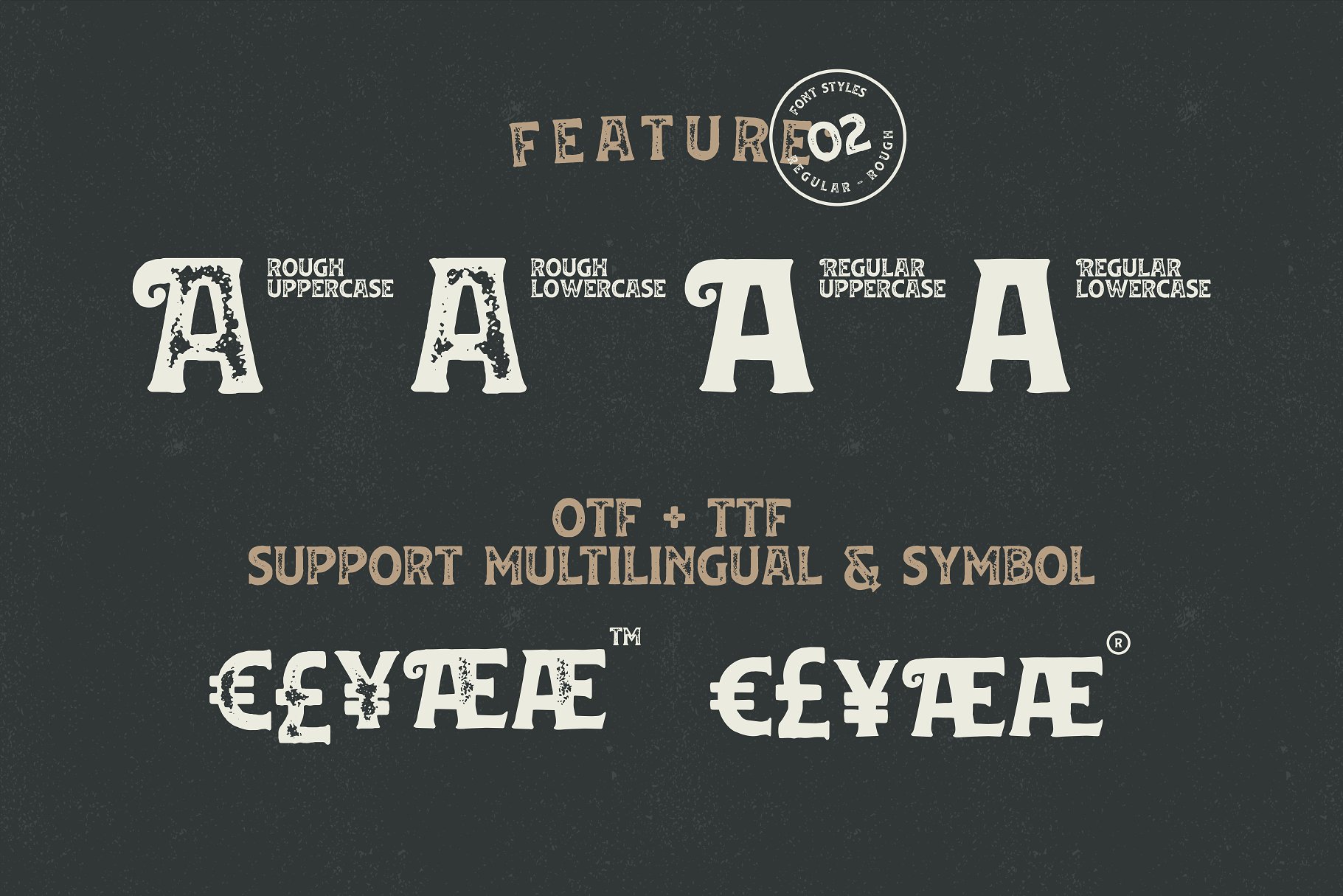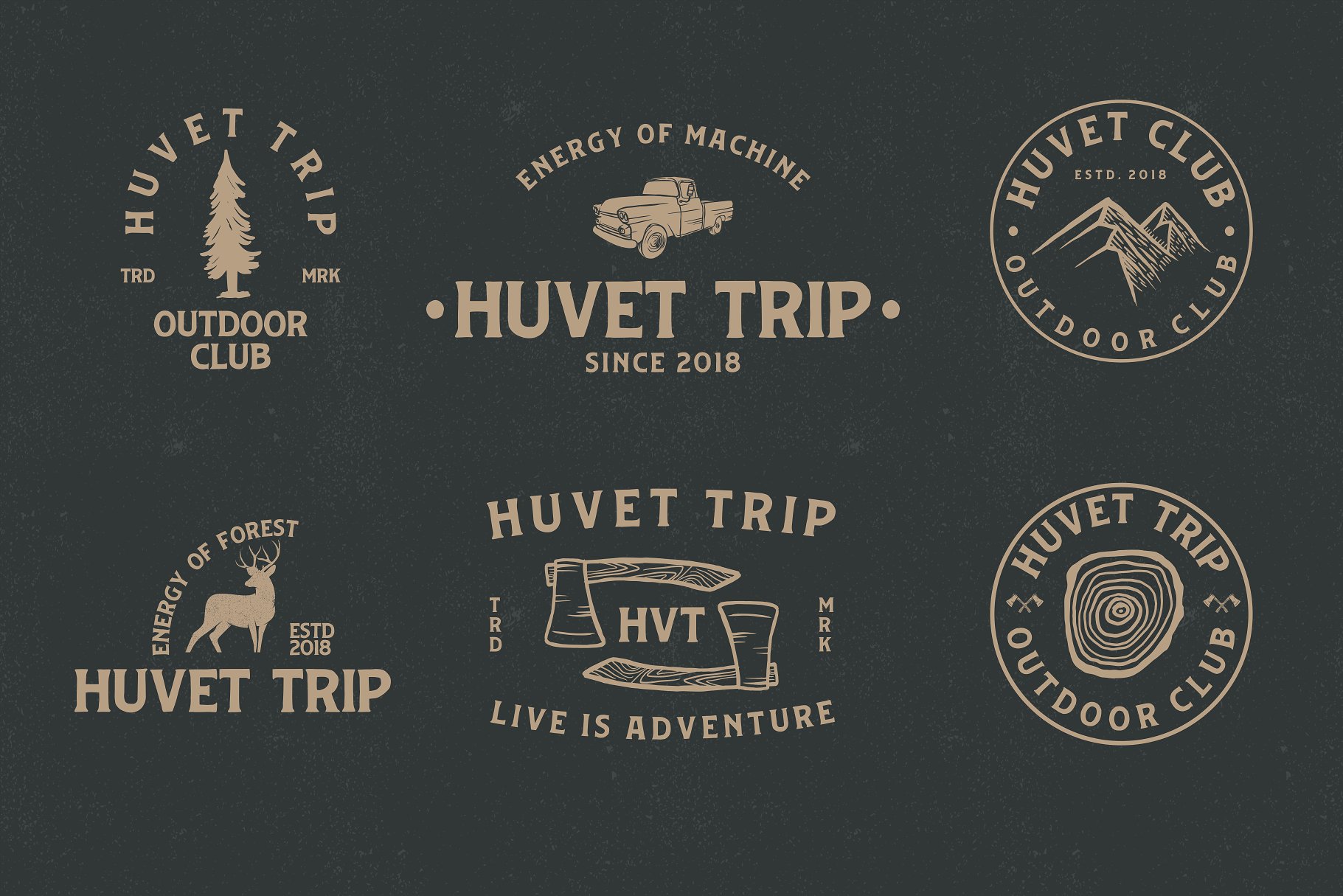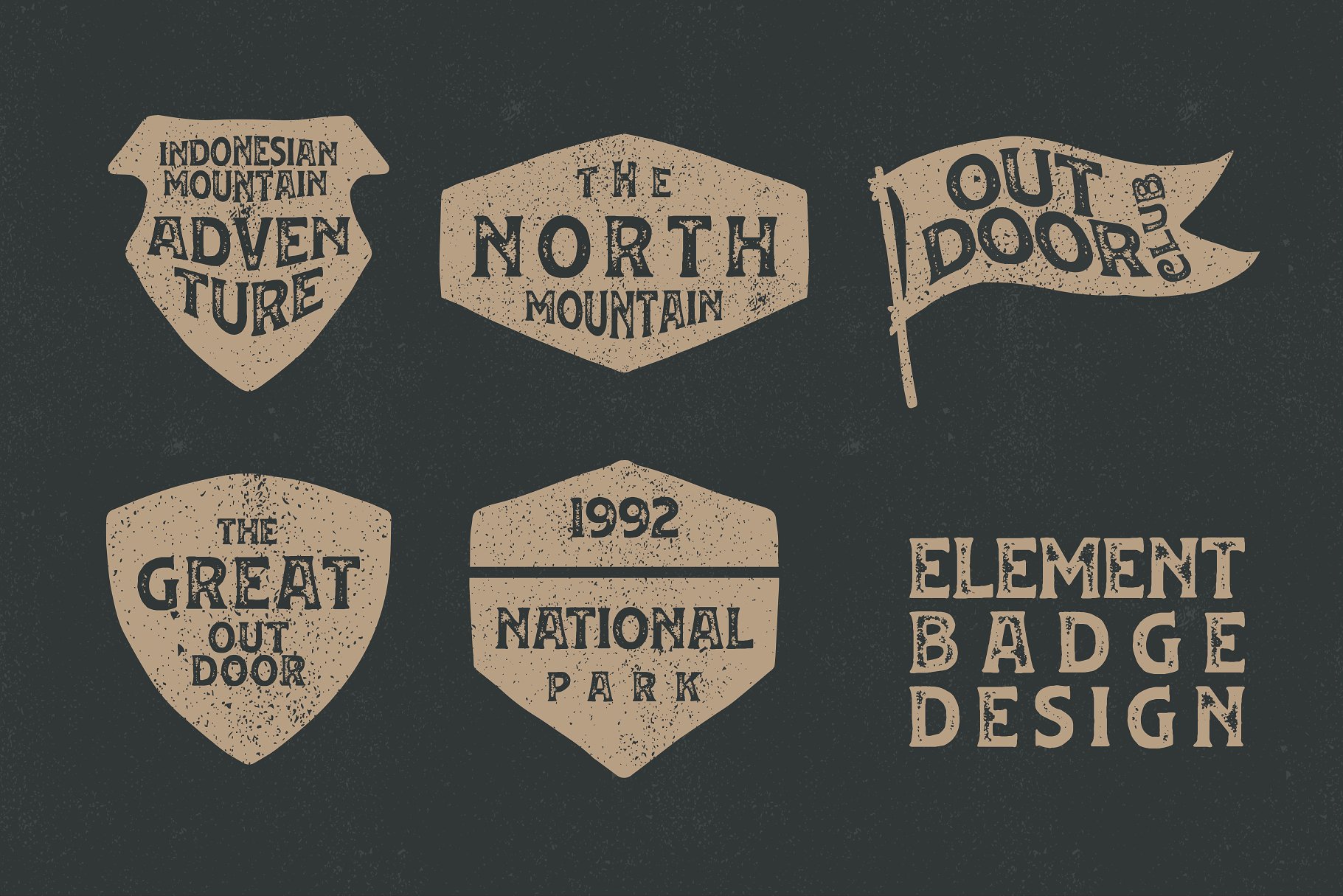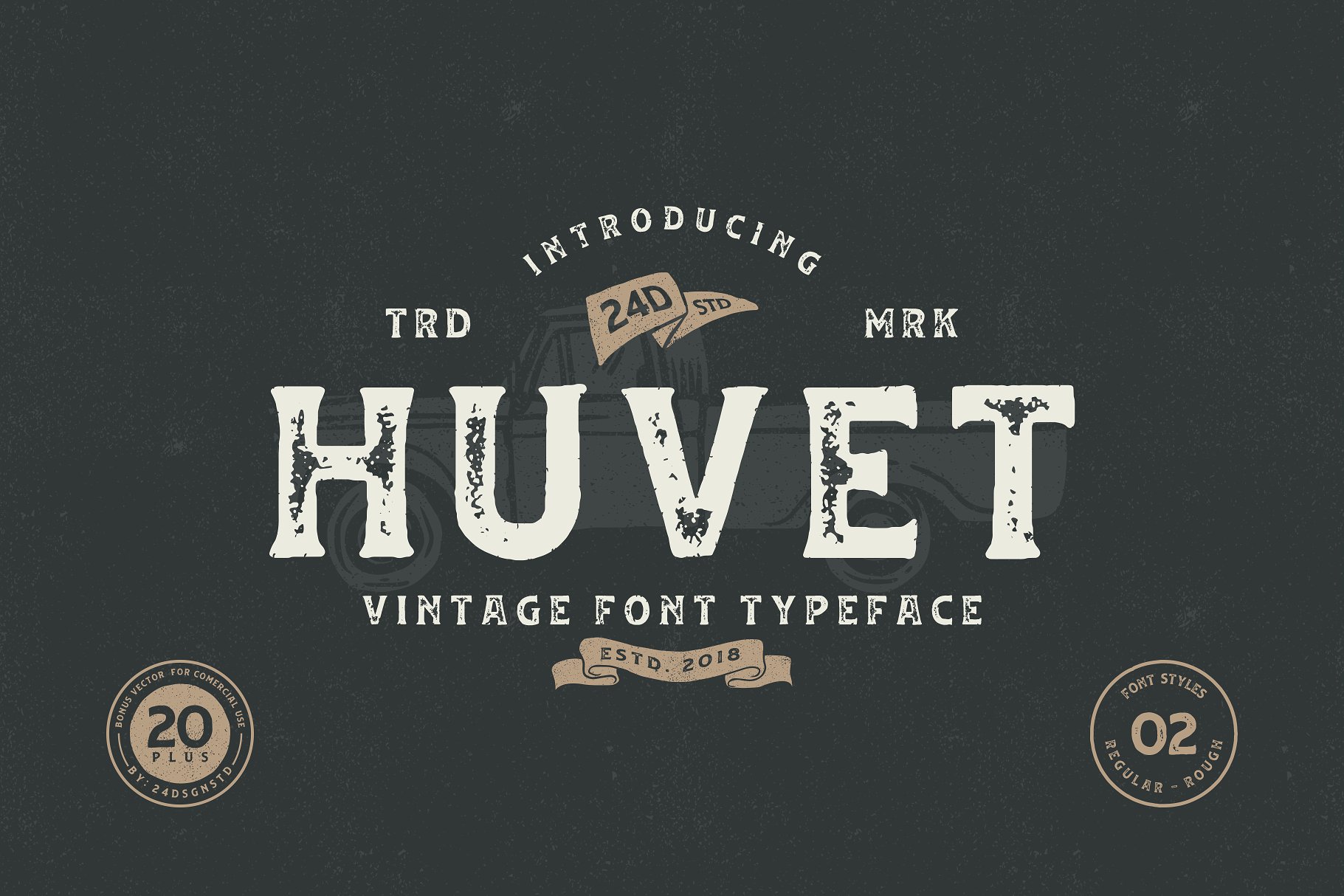
Huvet Vintage Font
A new vintage font typeface. Introducing Huvet Font. Huvet Font is a striking display font. Its masculine style makes it perfect for logos, typography, and product labels that require a classic and masculine touch. It easily cooperating together and perfect for creating the traditional style logos, labels, package design, lettering for t-shirts and much others.